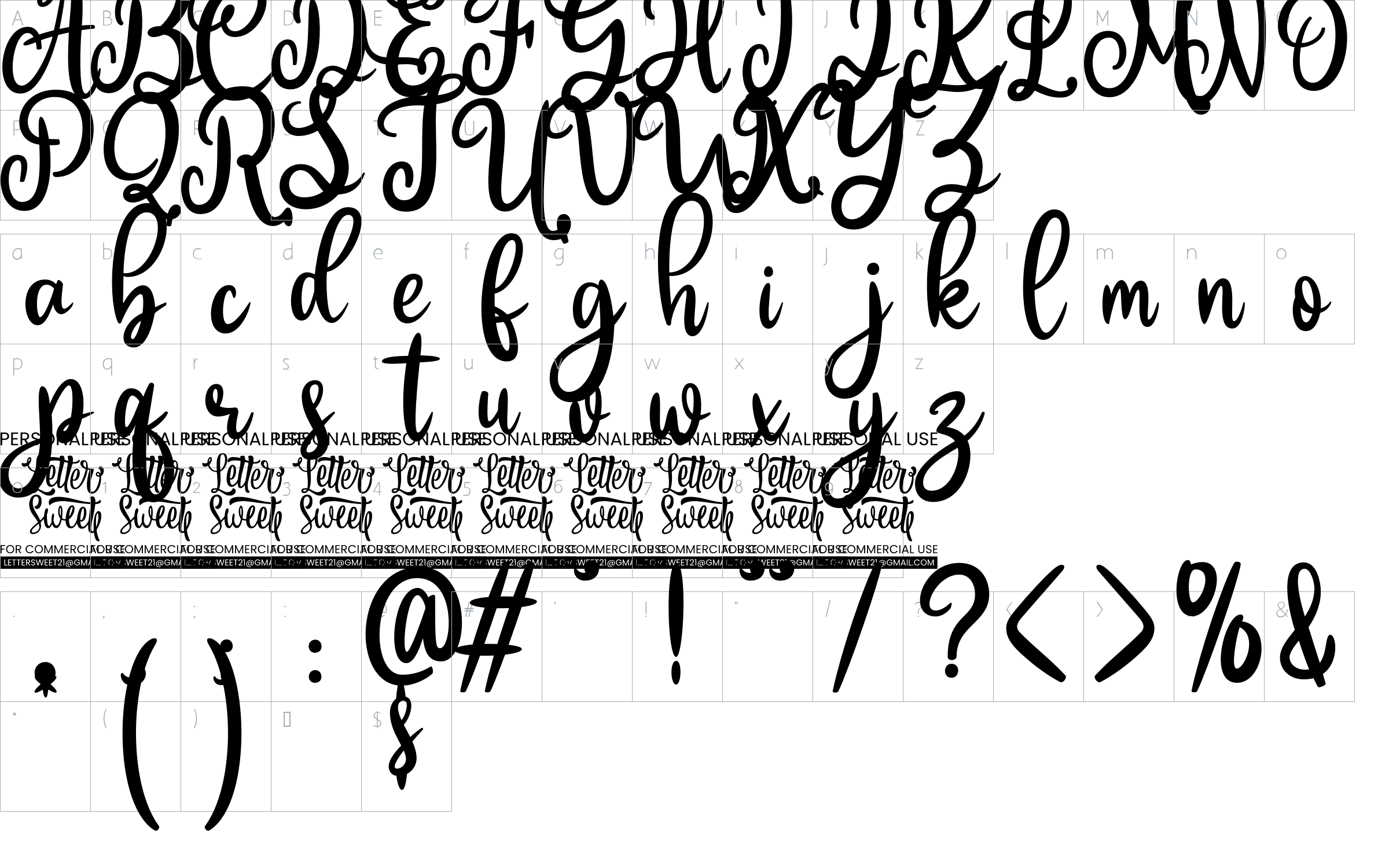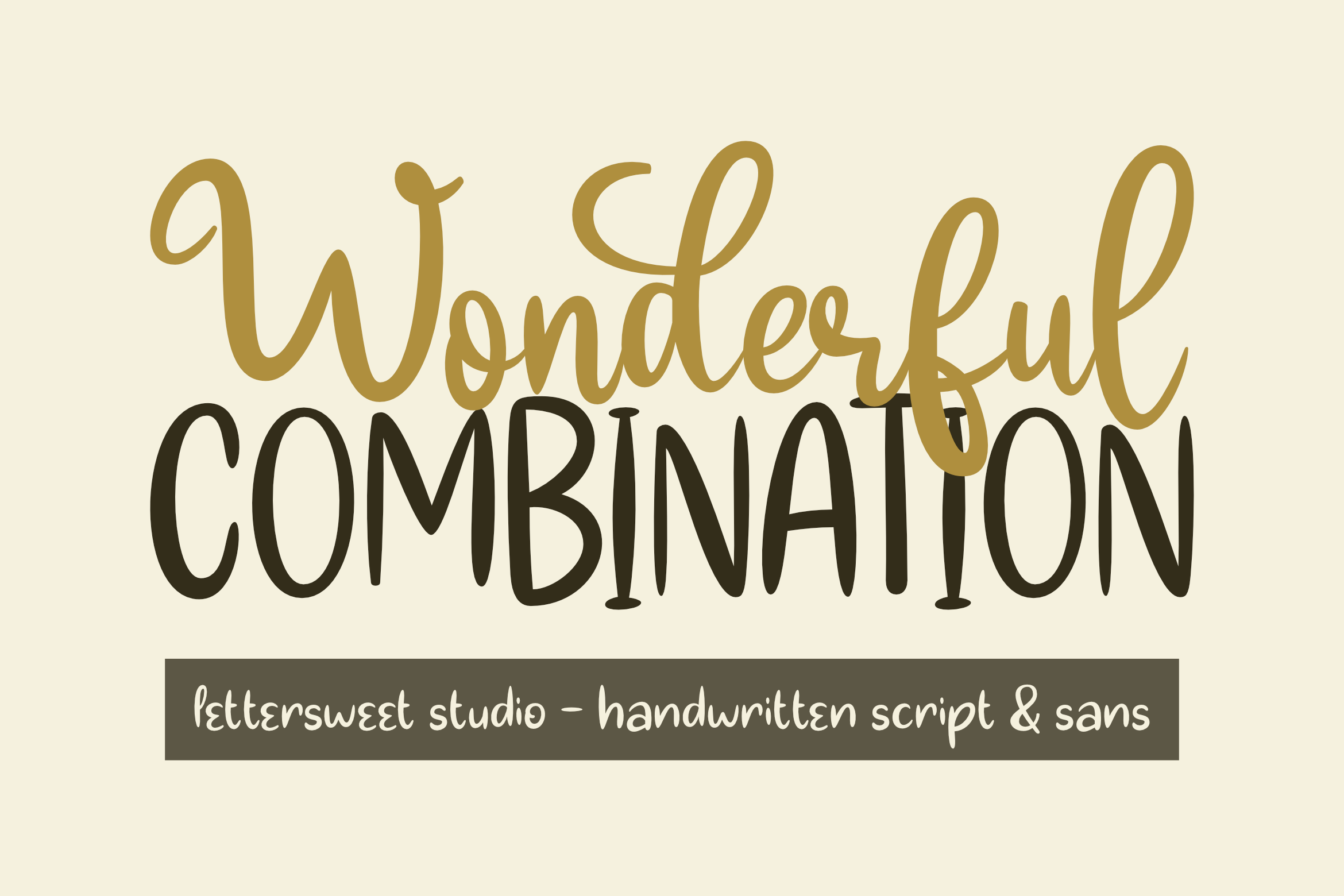
Wonderful Combination - Script And Display Font
About Wonderful Combination - Script And Display
Wonderful Combination is a duo script and display font. This font is created directly with hand scribbles. It has a casual, yet elegant touch. Masterfully designed to become a true favorite, this font has the potential to bring each of your creative ideas to the highest level!